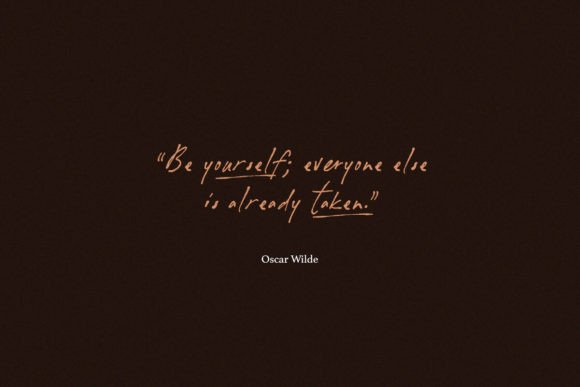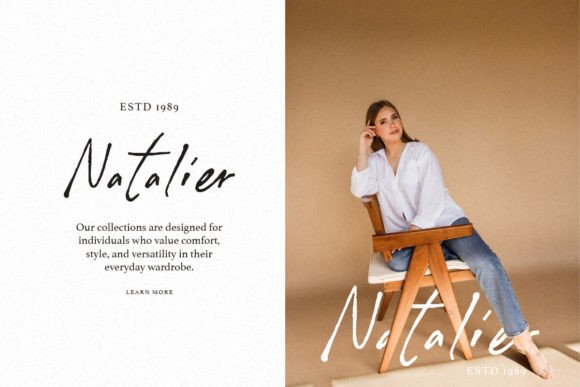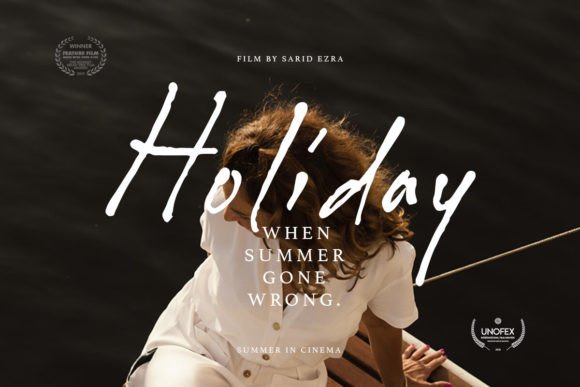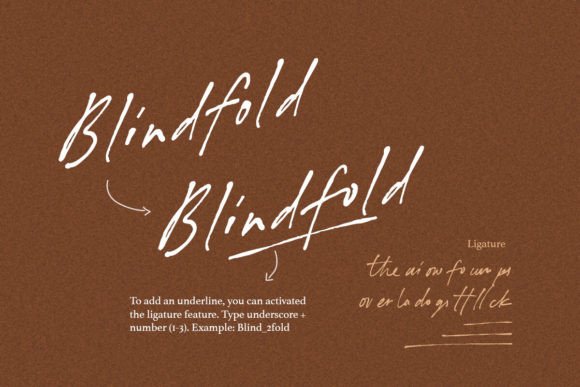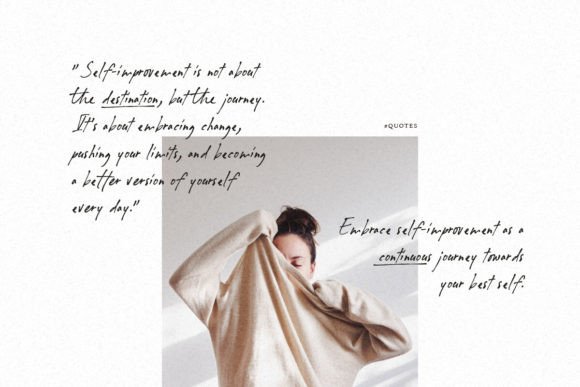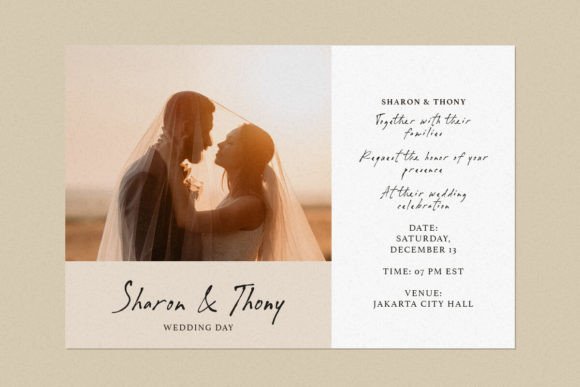
Introduction to Blindfold Font
As designers, we’ve all been there – staring at a blank canvas, searching for the perfect font to bring our creative project to life. And then, it hits us – a spark of inspiration that sets our imagination ablaze. For me, it was a stroll through a quaint bookstore, surrounded by the worn pages of old novels and the gentle creak of wooden shelves. That’s where I discovered the Blindfold Font, an organic signature script that exudes a natural handwriting feel.
With its unique blend of alternate, ligature, and underlining features, the Blindfold Font is a game-changer for designers looking to add a personal touch to their work. Whether you’re creating a logo, headline, or invitation, this versatile font is sure to elevate your design to the next level. And the best part? It’s available for free download, making it an invaluable resource for any design project.
From transparent backgrounds to high-quality design, the Blindfold Font is a must-have for any designer looking to take their creative projects to new heights. So why settle for ordinary when you can have extraordinary? Dive into the world of Blindfold Font and discover a whole new world of design possibilities.
Key Features of Blindfold Font
- High-quality, unique font design perfect for creative projects
- Perfect for designers and artists looking for a distinctive, eye-catching font
Honest Review: Blindfold Font
As a designer, I’m always on the lookout for unique and high-quality design resources to elevate my creative projects. I recently came across the Blindfold Font and was excited to give it a try.
Here are the things that worked well for me:
- ✨ High-quality typography: The Blindfold Font has a beautiful, elegant design that’s perfect for titles and headings.
- ⚠️ Limited font weights: The font only comes in a few weights, which can limit its versatility in certain design projects.
Overall, I was impressed with the Blindfold Font, and I would definitely recommend it to designers looking for a high-quality, elegant font for their creative projects. With a few minor tweaks, I think this font has the potential to be a top design resource.
Blindfold Font
The Blindfold Font is a high-quality design resource ideal for creative projects requiring a unique, stylish touch. With a transparent background, this font is perfect for designers seeking to add an extra layer of sophistication to their work.
Tips for Getting the Most Out of Blindfold Font
For optimal results, use the Blindfold Font in conjunction with other high-quality design elements. Experiment with different font sizes, colors, and combinations to find the perfect look for your project.
The Blindfold Font is ideal for a variety of projects, including brochures, business cards, and website headers. Its unique design and transparent background make it a popular choice for designers seeking to add a creative touch to their work.